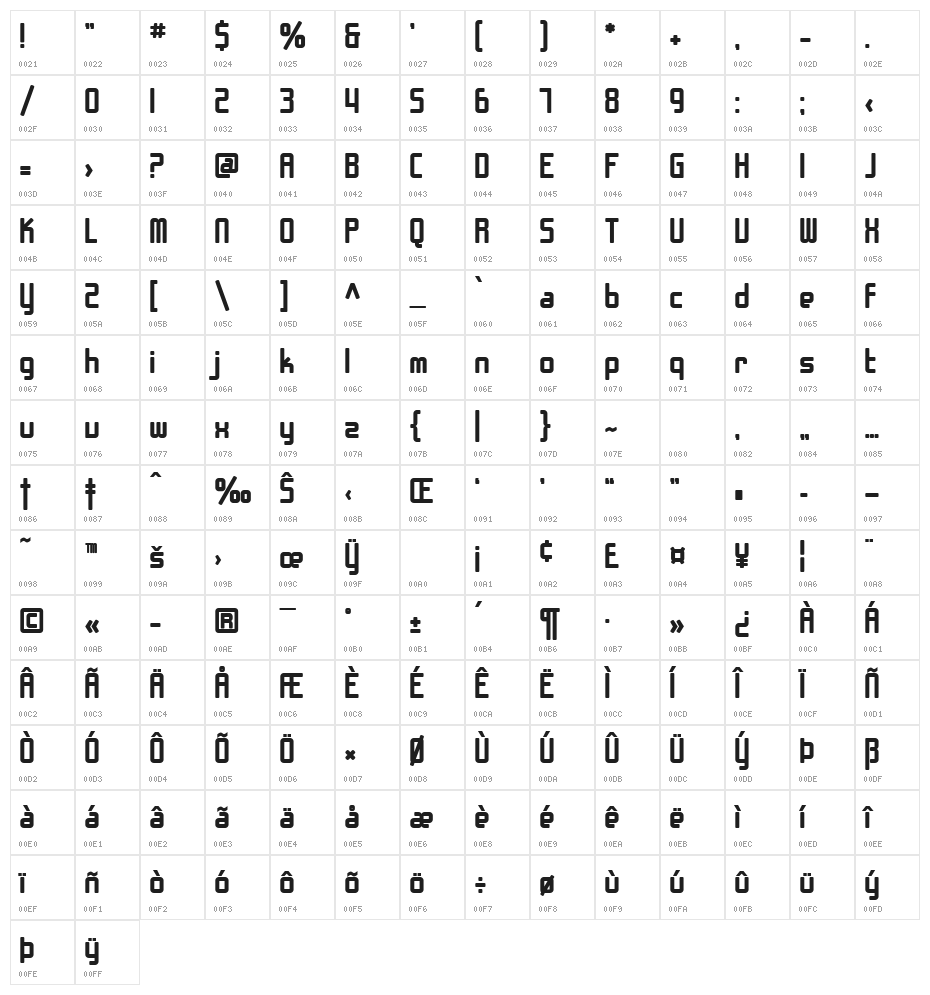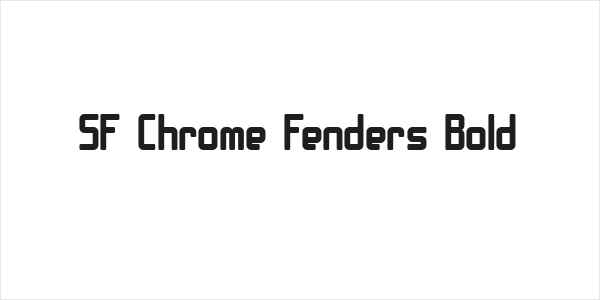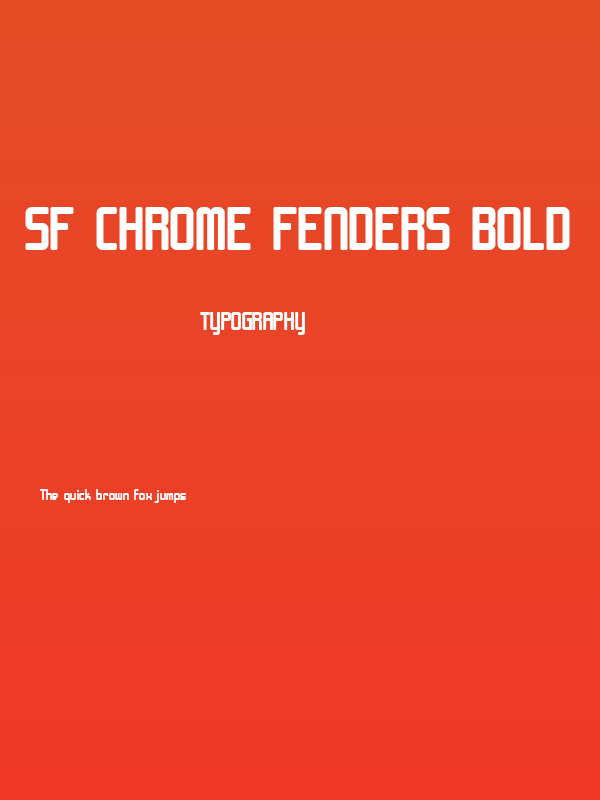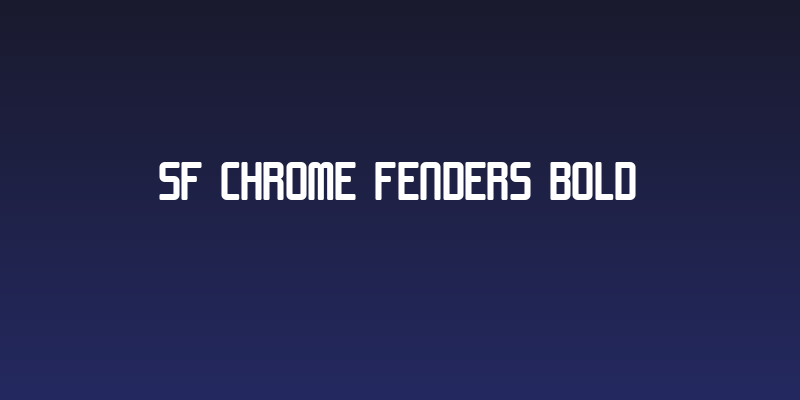
SF Chrome Fenders Bold Font
SF Chrome Fenders Bold Description
This font features a bold, geometric design with rounded edges, giving it a modern and futuristic appearance. The characters are evenly spaced and maintain a consistent thickness throughout, which enhances readability. The uppercase and lowercase letters share a similar structure, providing a cohesive look. The numerals and special characters are designed to match the overall style, making the font versatile for various applications. Its boldness and unique style make it suitable for attention-grabbing headlines and logos.
| Proposed Projects | Ideal for branding, advertising, digital interfaces, and any project requiring a modern, standout typeface. |